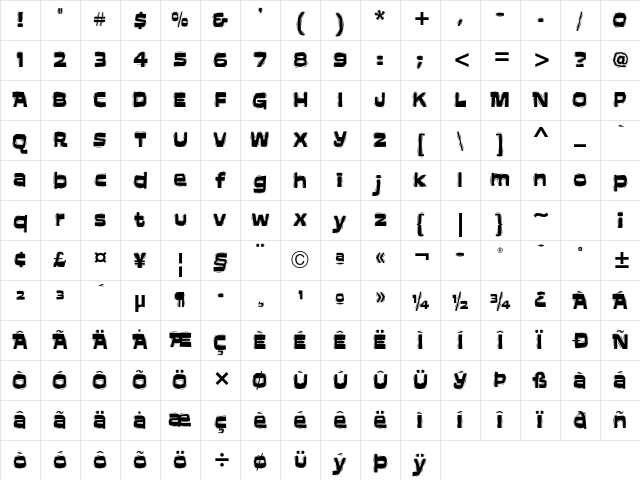
Aftershock ITC Std Regular
Designer: Bob Alonso
Design Context for Aftershock ITC Std
Aftershock ITC Std is a composed and adaptable typeface that performs quietly and consistently across a wide range of design contexts.